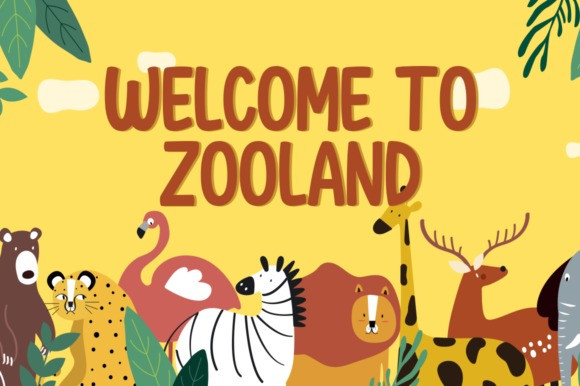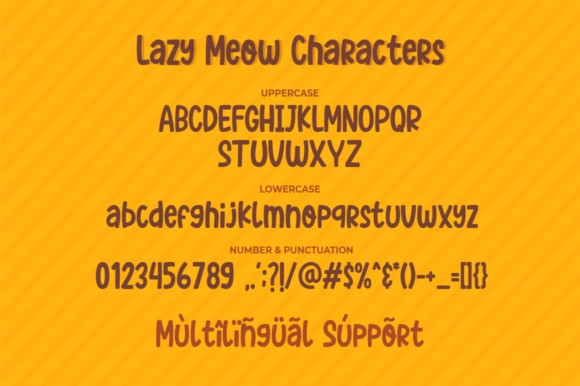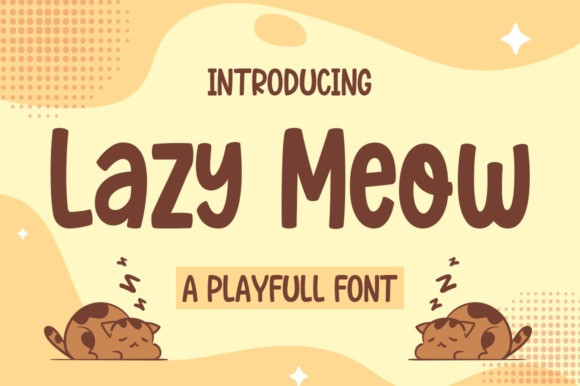
Lazy Meow Display Font
Lazy Meow is a playful yet chunky lettered display font. Add this font to your creative ideas and notice how it will make them stand out!